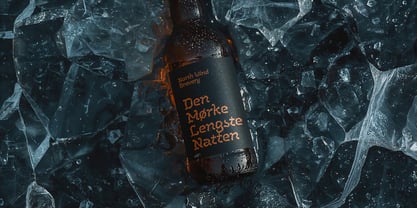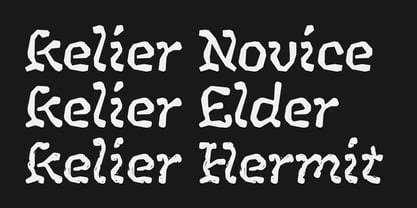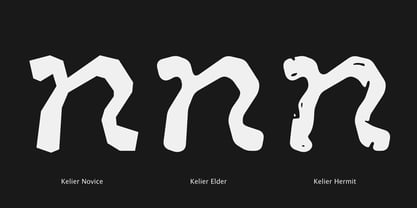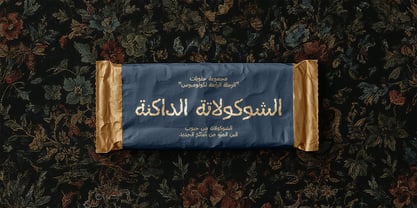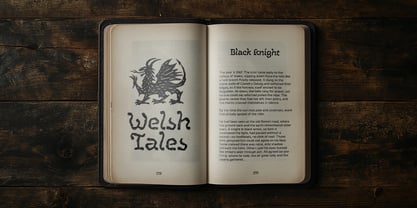
Kelier
by Michael Rafailyk
The Kelier Font Family was designed by Michael Rafailyk and published by Michael Rafailyk. Kelier contains 3 styles and family package options.
Inspired by the rough asceticism of cave monastic cells, Kelier is a continuation of a series of carved–forged typefaces (such as Morta and Kingfall), where the form is mainly composed of straight, rough edges. The font family includes three styles: Novice (rough straight shapes with sharp corners), Elder (softer shapes with rounded corners), Hermit (decorated with scratches and scuffs).
About Michael Rafailyk
Michael Rafailyk is a type designer from Ukraine specializing in Cyrillic script, and works with with Latin, Greek, Mkhedruli, Armenian, Hebrew, and Arabic scripts. Awarded at TDC70 in the Type Design category. He holds bachelor’s degrees in musical composition and graphic design, and has over 10 years of experience in branding. He composes music for the 8-string guitar and piano. Drawing on this combined experience, Michael brings a strong sense of rhythm and visual harmony to his type design, often engaging with unconventional ideas and making them usable by synthesizing them with classical forms.